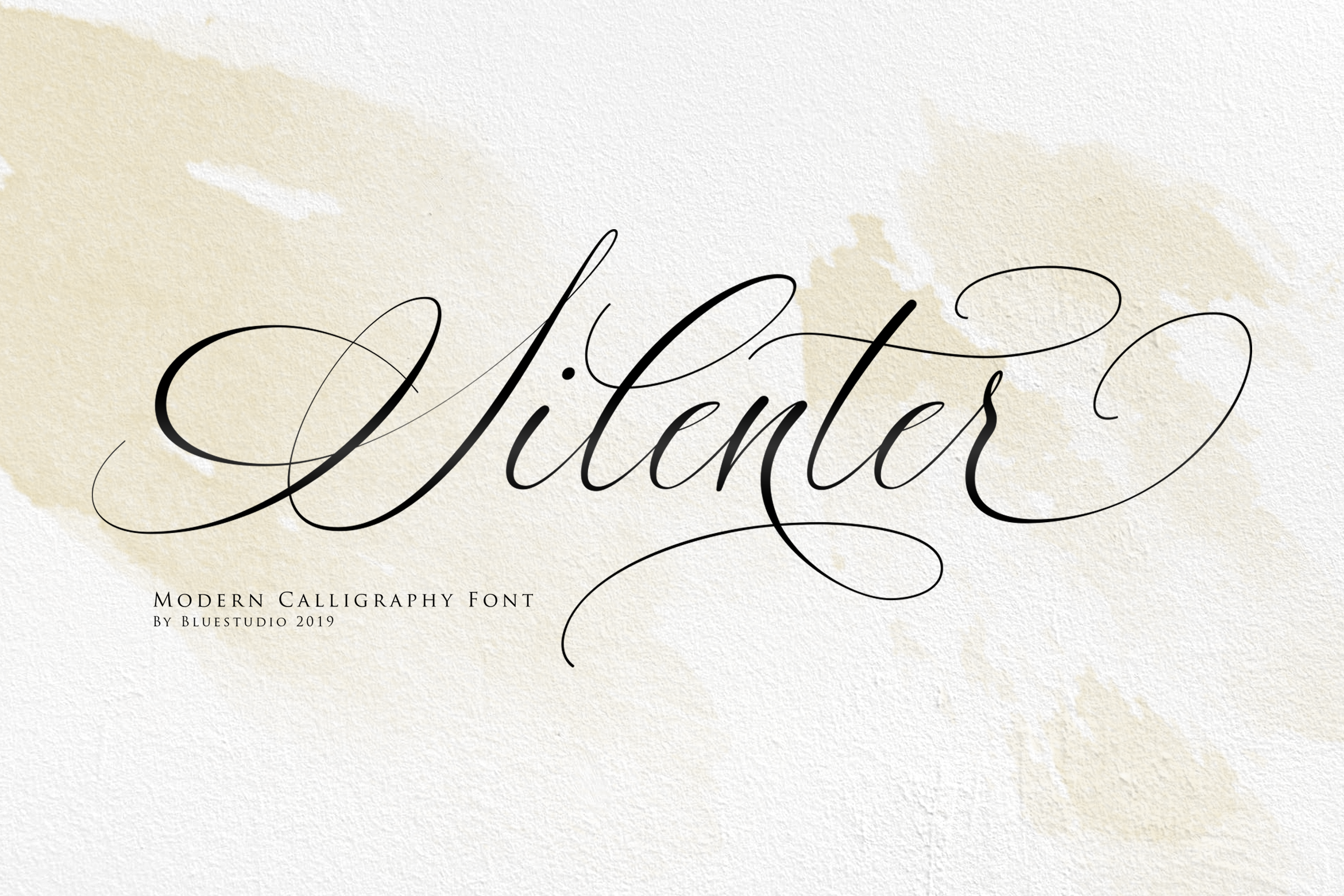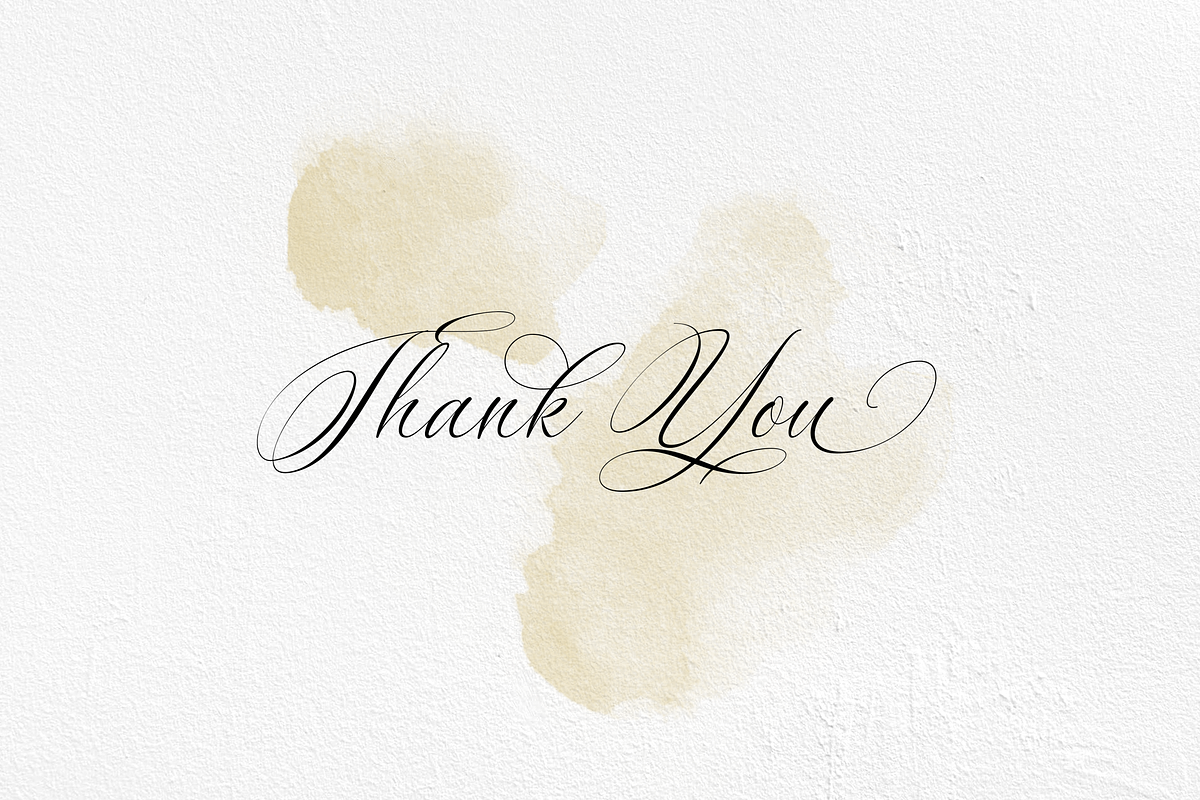
Silenter / Modern Calligraphy Font
Introducing our newest product Silenter modern calligraphy font.
Silenter is suitable for all your design project needs such as: logo design, branding, covers, posters, magazines, wedding invitations, greeting cards, quotes and more.
Titling, swash, Stylistic Alternate, Stylistic Alternate Set 01,02,03
Multilingual support - spread your message globally AÀÁÂÃÄÅCÇDÐEÈÉÌÍÎÏIÌÍÎÏNÑOØÒÓÔÕÖUÙÜÚÛWYÝŸÆßÞþ Encoded PUA Characters